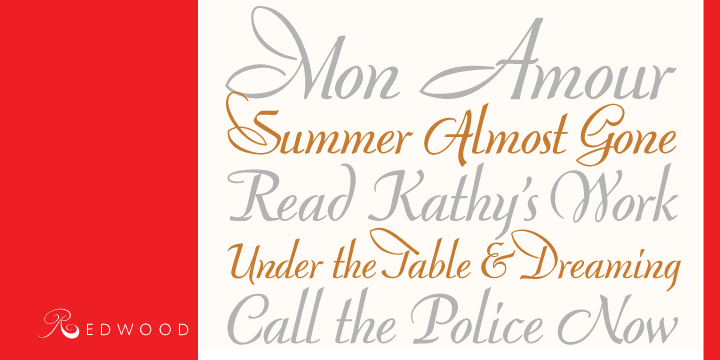
Redwood Pro is a script font published by Canada Type.
Redwood is the fresh and lively digitization of the popular ATF landmark, Raleigh Cursive. Drawn by Willard Sniffin in 1929, and introduced by ATF in 1930, this classic script is prominently featured in almost every published type history book, and proudly listed among every letterpress printer’s type assets.
Redwood’s unique calligraphy is complemented with a set of swash capitals unlike any others out there. Strength, grace and elegance rarely ever combine the way they do in this typeface.